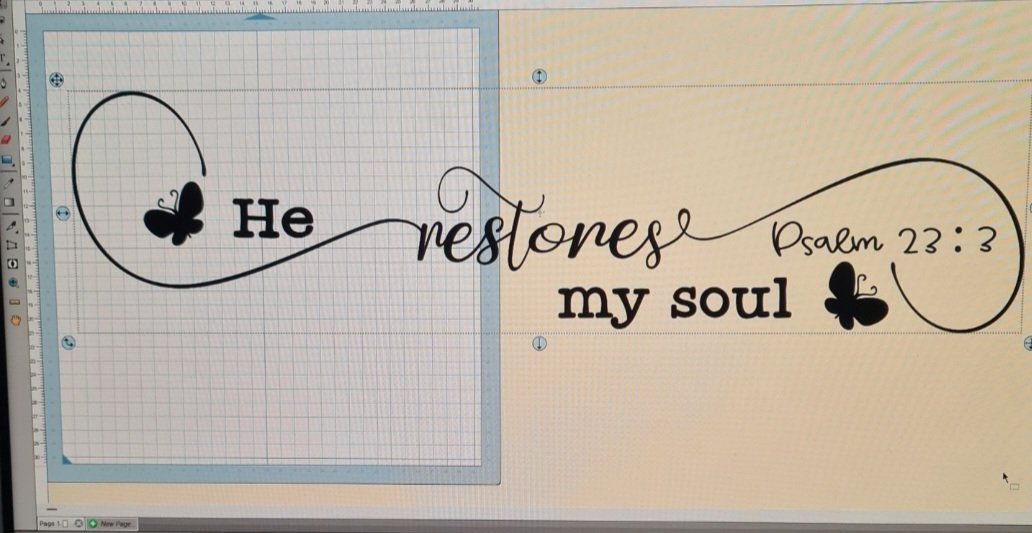
Loveable Script is a Romantic Calligraphy Font, with curves and lines are so soft that makes this font look pretty and realistic.
With 347 Characters, Loveable Script is perfect to all your design project, like invitation card, product logo, food brand, logo and much more.
Loveable Script also supported with Ligature, Stylistic Set 1-6, and Stylistic Alternate, that will help you get beautiful style with your own creation.
Loveable Script